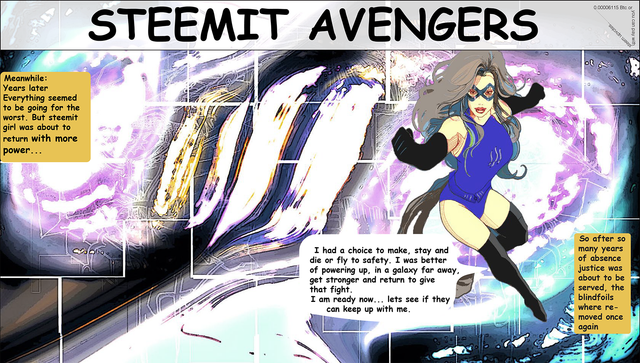
Font adventures (Comic Sans MS)
Comic Sans
This series will explore the art of typography and for the third part of my series I will play around with Comic Sans. designed by Vincent Connare and released in 1994 by Microsoft Corporation ✺
Comics Sans are around since Microsoft 95 and the full name of the typeface is called "Comic Sans MS" a lot of people love to hate them but, a study on typefaces and fonts from Princeton University find that our brains retain more information when we read ugly or hard to read fonts. So if you are studying for exams do it in Comic Sans boys.
"On 21 August 2015, a number of Greek Prime Minister Alexis Tsipras's Syriza party members split and formed a new party, headed by Member of the Hellenic Parliament Panagiotis Lafazanis. The official document of resignation was allegedly written in Comic Sans"✺
I only find it proper to use it as a comic font since that is how it is perceived in everyone's conscious, except SYRIZA's as it seems.
So for a font that has taken the title "King of Informality" they are doing pretty well till date. And they will probably continue being the king of informality for a very, very long time.
The font used on this project is the:
Comic Sans MS.